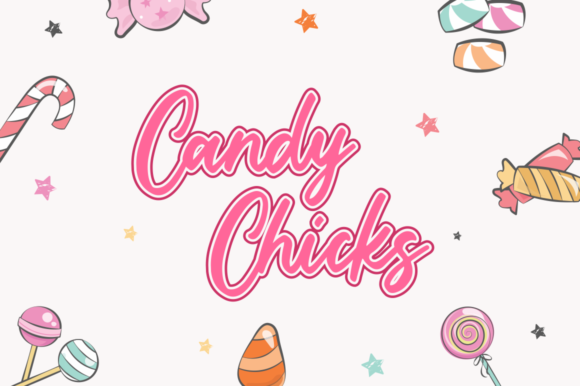
Ah, the allure of a font that whispers romance and awakens the playful spirit within! Candy Chicks, a captivating script font, beckons you to add a touch of whimsical charm to your creations. Each letter, meticulously crafted by the fontsmiths of Sronstudio, exudes an aura of authenticity and warmth, making it the perfect choice for adding a personal touch to any design.
Journey with us into the enchanting world of Candy Chicks, where the boundaries of creativity dissolve into a kaleidoscope of possibilities. This multifaceted font lends itself effortlessly to a myriad of artistic endeavors, from expressing your heartfelt sentiments on Valentine's cards to adorning your designs with an irresistible touch of romantic elegance. Whether you're a seasoned wordsmith or simply seeking to add a dash of sweetness to your projects, Candy Chicks is your font of choice.
Picture this: your Valentine's greeting transformed into a masterpiece of affection, adorned with the alluring curves of Candy Chicks. Each letter cascades across the page like a whisper of love, conveying your heartfelt emotions with an artistry that speaks volumes. But the magic of Candy Chicks extends far beyond heartfelt expressions. Its versatility shines through in body text, where it weaves a captivating tapestry of words, luring readers into the depths of your narrative.
With Candy Chicks at your fingertips, your designs will blossom into vibrant expressions of your creativity. Its playful nature lends itself to whimsical invitations that spark joy and ignite imaginations. Enchanting posters adorned with Candy Chicks will captivate your audience, leaving an unforgettable mark on their hearts and minds. And as you delve deeper into the world of typography, you'll discover a treasure trove of possibilities waiting to be unearthed with Candy Chicks as your guide.
Indulge in the charm of Candy Chicks and open the door to a world of creative enchantment. Its allure knows no bounds, inviting you to craft designs that resonate with authenticity and leave a lasting impression. Embrace the spirit of romance, playfulness, and authenticity that flows through Candy Chicks, and let your imagination soar to new heights.